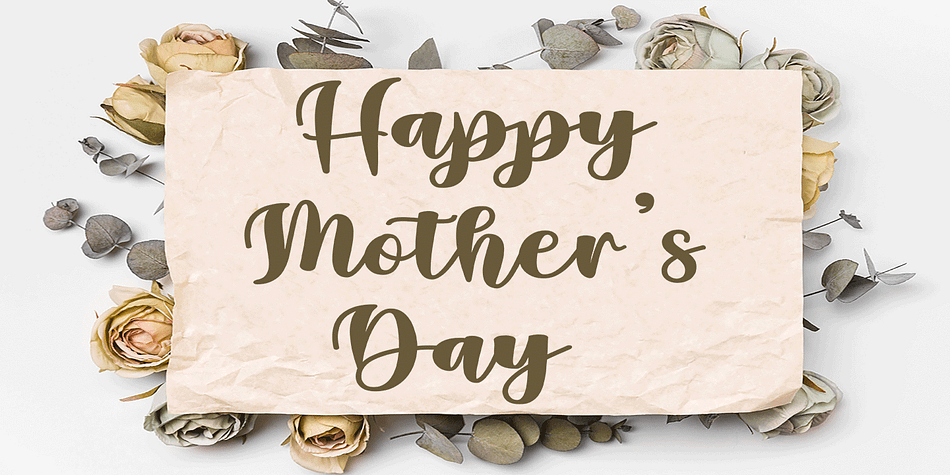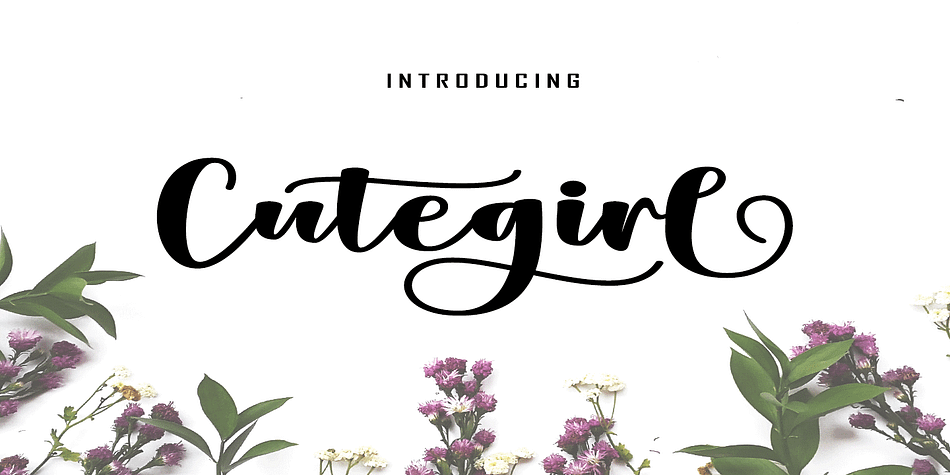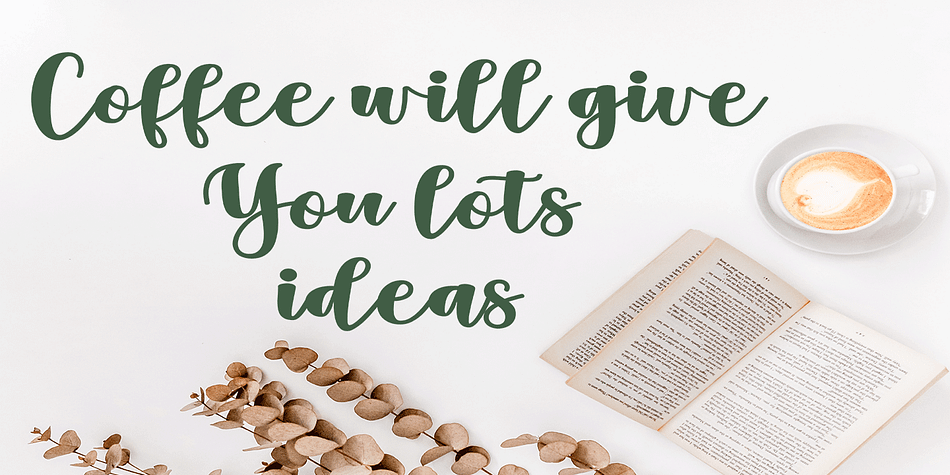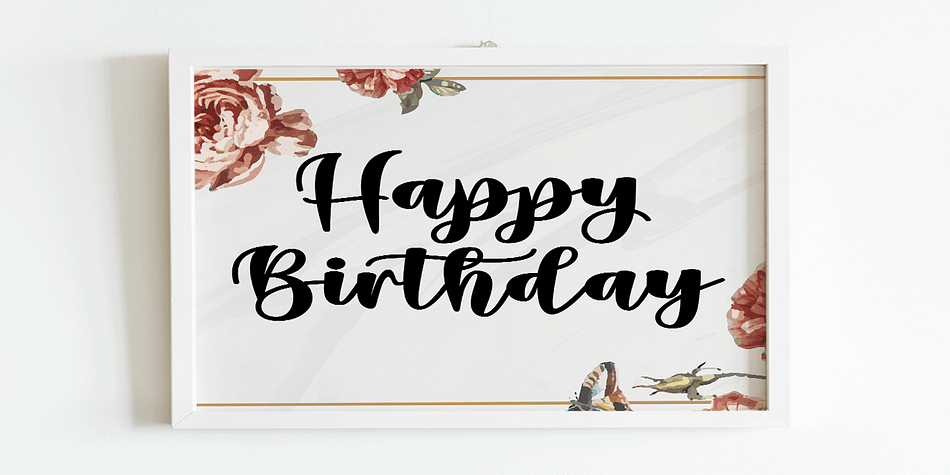
Cute Girl
Cute Girl is a brush script font family published by HRZ Studio.
Cute Girl Script including alternative characters, ligatures and various language support. With the OpenType feature with an alternative style and elegant binder. The OpenType feature does not function automatically, but you can access it manually and for the best results needed for your creativity in combining these Glyph variations. and also a touch of ornament makes this font look elegant.